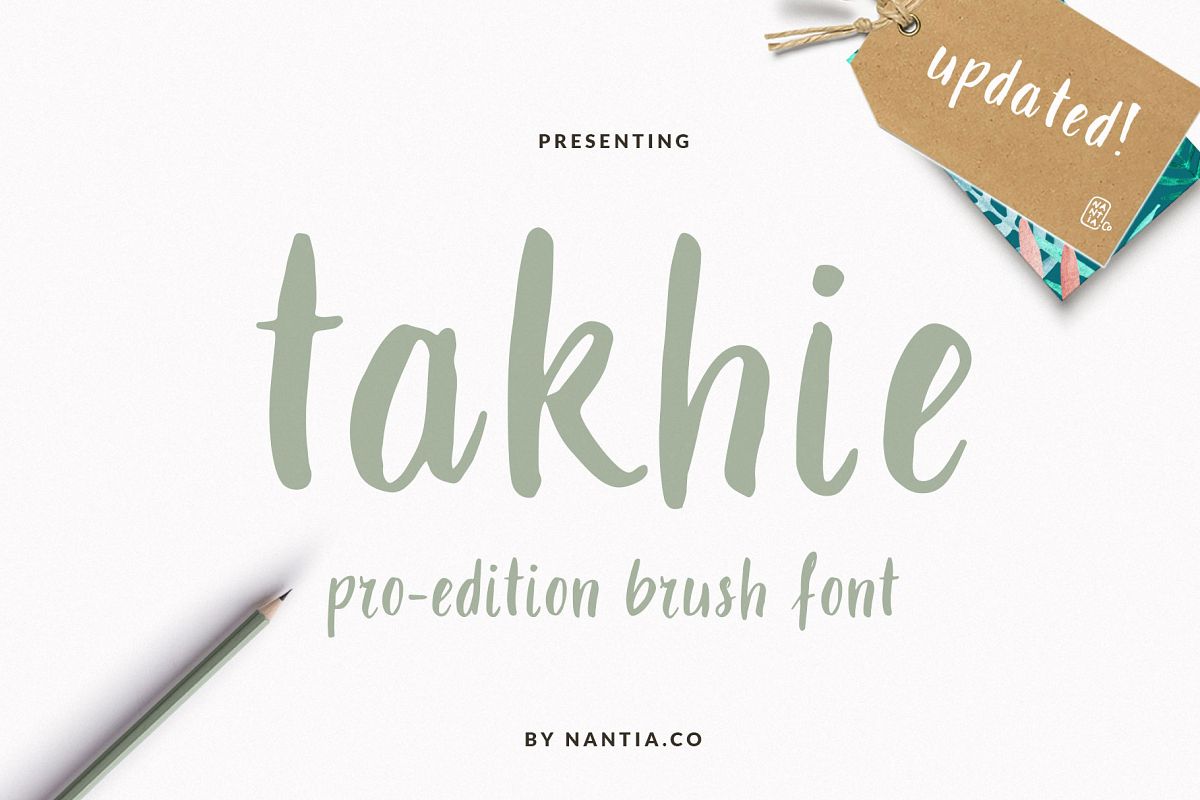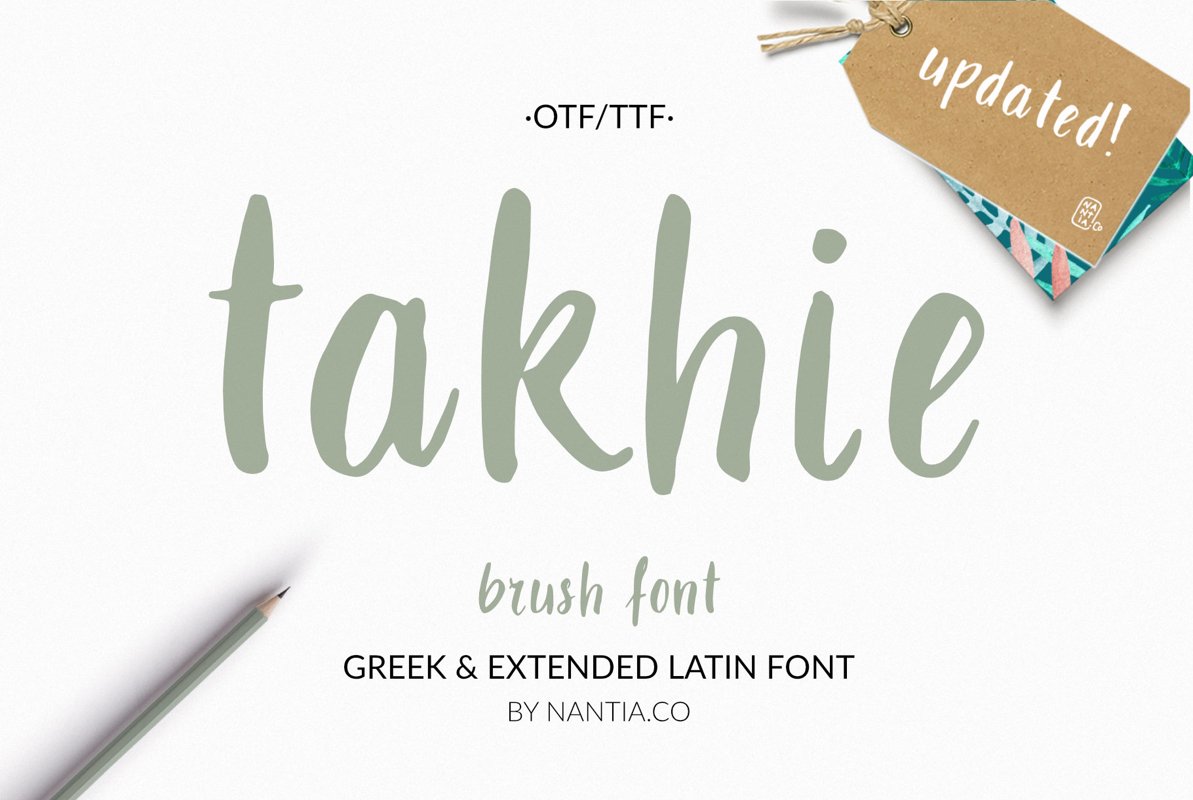
Takhie Pro | Multilingual Brush Font
The Takhie Pro | Multilingual Brush Font is a 100% hand drawn decorative font with which you can achieve a handwritten-type lettering feeling. This font has a really nice flow so you use it in a large text if you want to give them a touch of personality.
Takhie Pro | Multilingual Brush Font
• Extended Latin
• Greek
• punctuation marks
• numbers
• ligatures